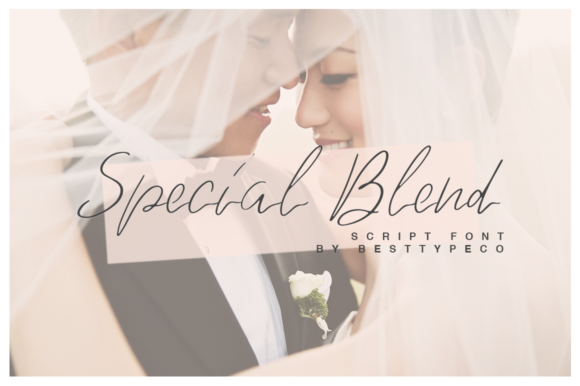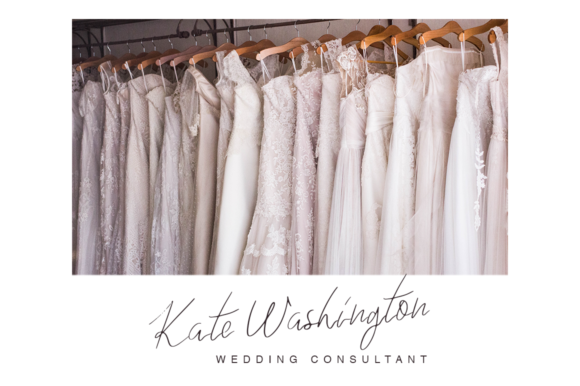
About Special Blend Font
Special Blend is a delicate and romantic handwritten font. It has beautiful and well balanced characters and as a result, it matches a wide pool of designs. Add it to your most creative ideas and notice how it makes them come alive!